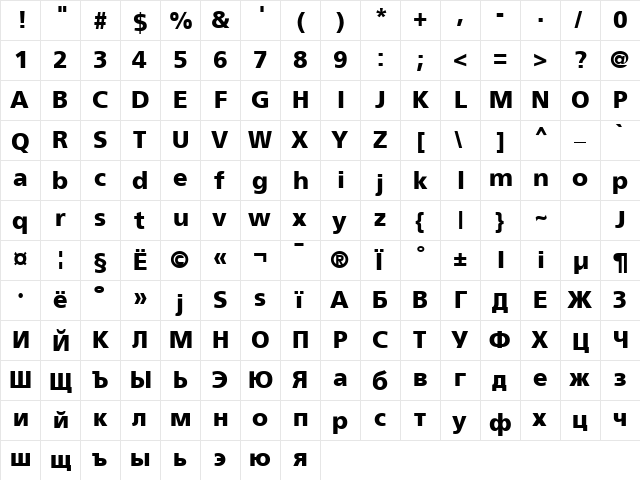
Foreigner Bold
Design Context for Foreigner Typeface
Foreigner is a composed and adaptable typeface that performs quietly and consistently across a wide range of design contexts. Its bold stroke weight gives it real presence on the page.
Pro Tip: Pair Foreigner with a font of contrasting weight or personality to build a more expressive typographic hierarchy.